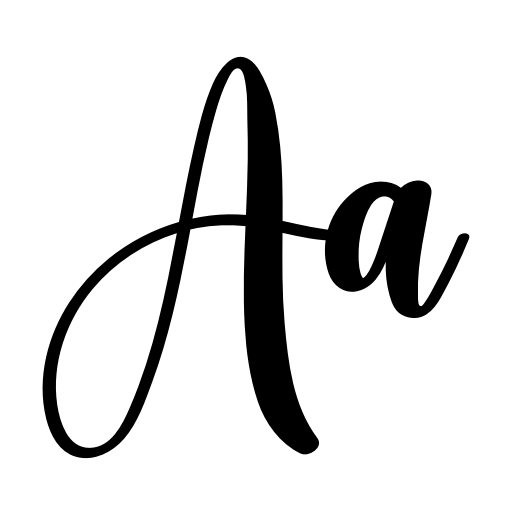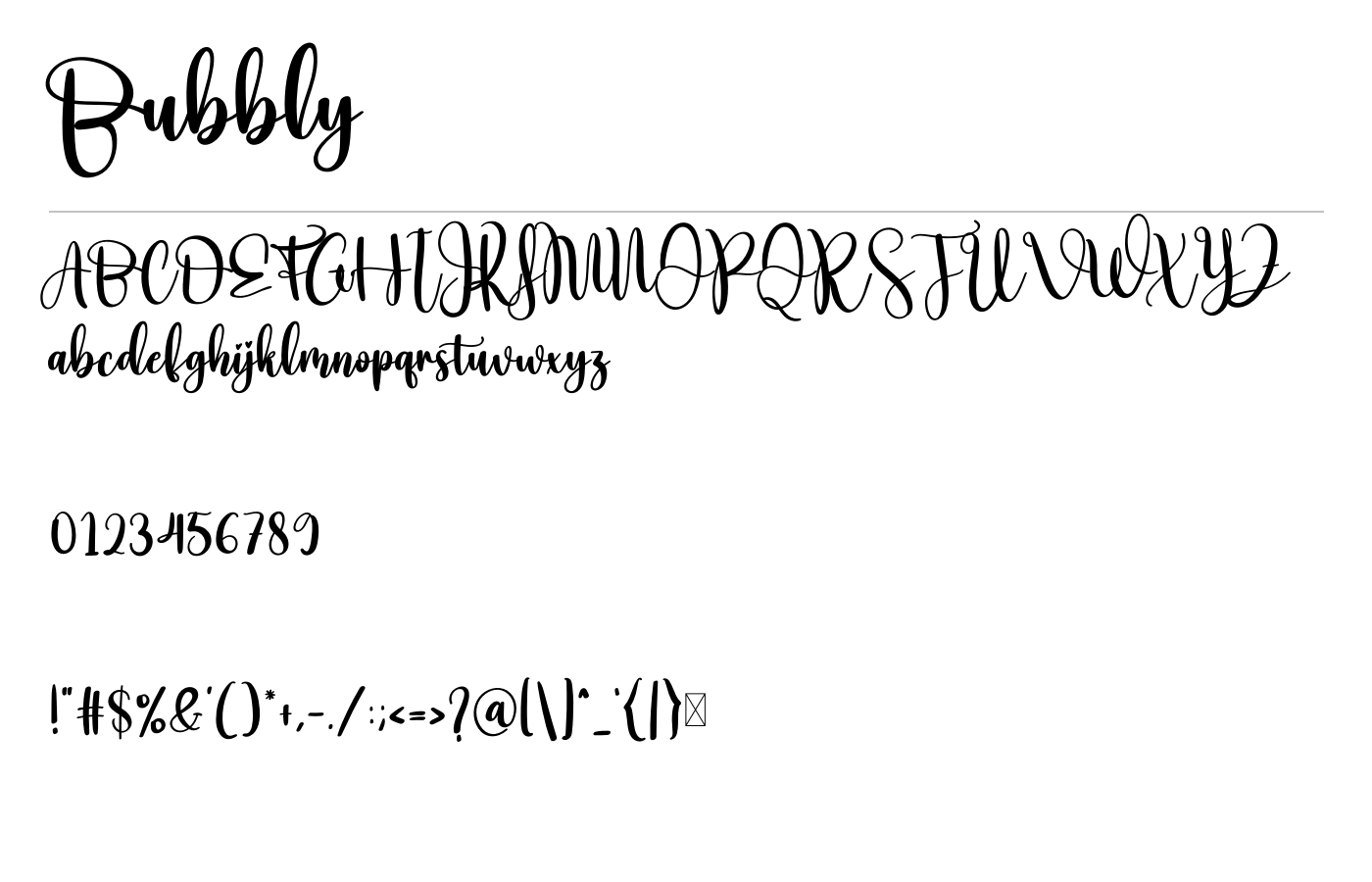
Bubbly Font is a playful and elegant script typeface characterized by its fluid, hand-drawn style with contrasting thick and thin strokes. Its whimsical uppercase letters and bold, rounded lowercase forms give it a friendly, inviting personality, ideal for creative branding, invitations, and stylish headlines. This font works beautifully in settings that seek a lively yet sophisticated touch, making it perfect for fashion, lifestyle, and fun, modern designs.
Bubbly Font